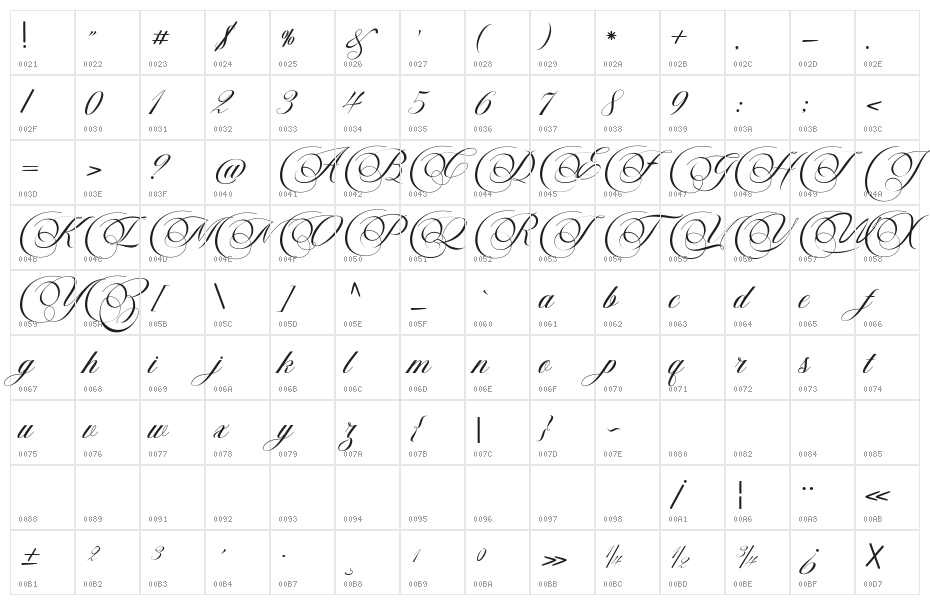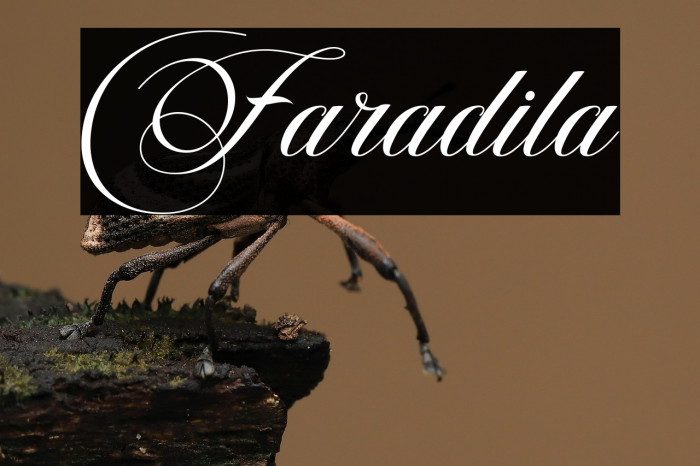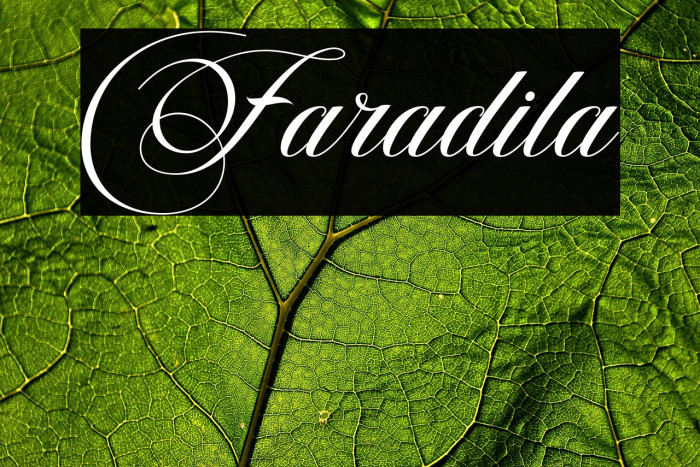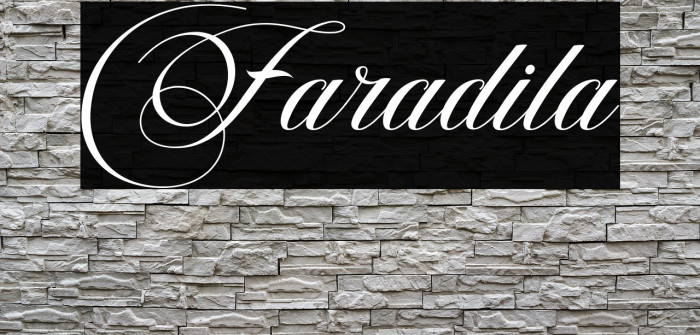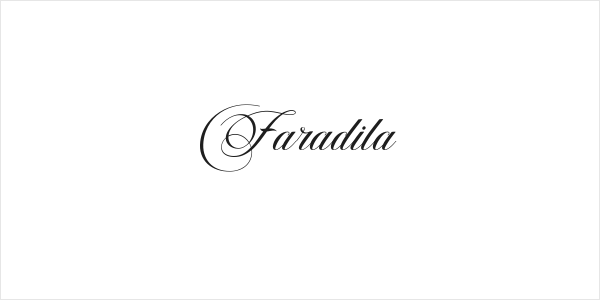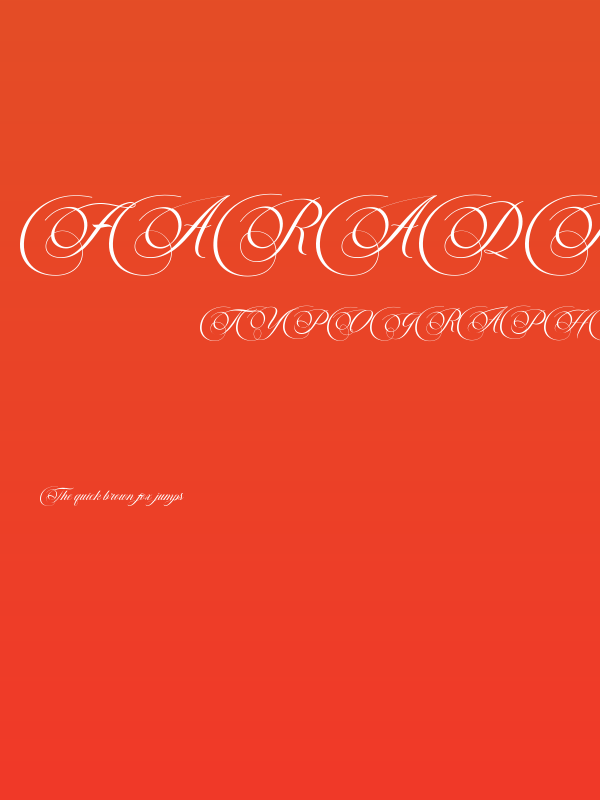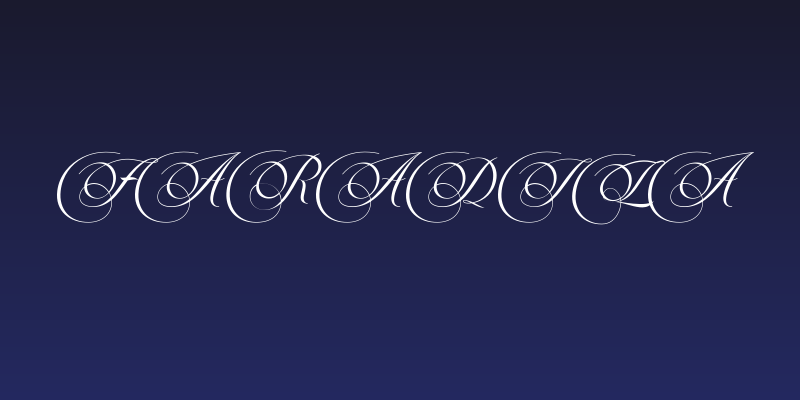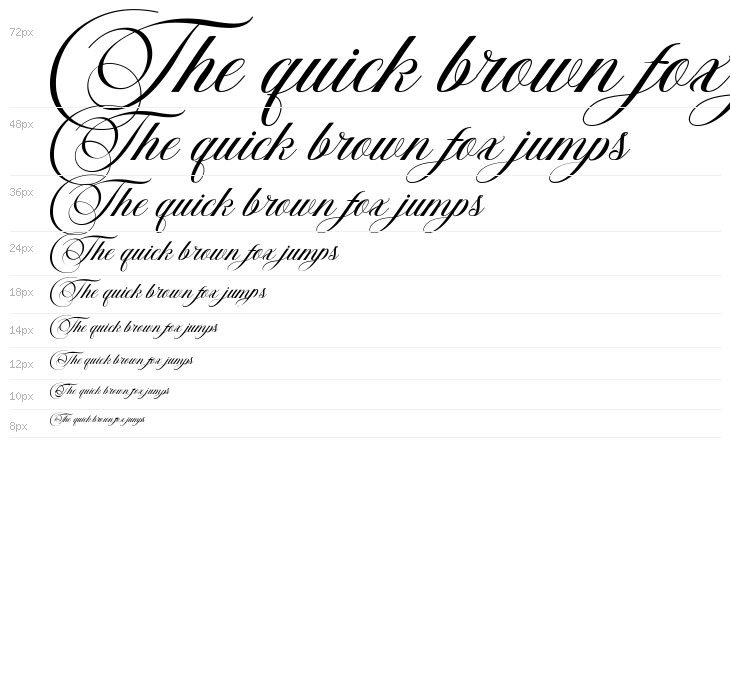
Faradila Font
Faradila Description
This elegant script font features a flowing, cursive style with intricate loops and flourishes. The uppercase letters are particularly ornate, with sweeping ascenders and descenders that create a sense of movement and grace. The lowercase letters maintain a consistent slant and are slightly more restrained, offering a balanced contrast to the elaborate capitals. The numerals are stylishly integrated into the design, echoing the fluidity of the alphabet characters. Special characters are thoughtfully crafted to match the overall aesthetic, making this font suitable for a variety of decorative purposes. The font's high contrast in stroke thickness adds to its sophistication, making it ideal for formal invitations, branding, and elegant signage.
| Overall Style | Elegant, Decorative |
| Proposed Projects | Ideal for wedding invitations, luxury branding, elegant signage, and formal event programs. |